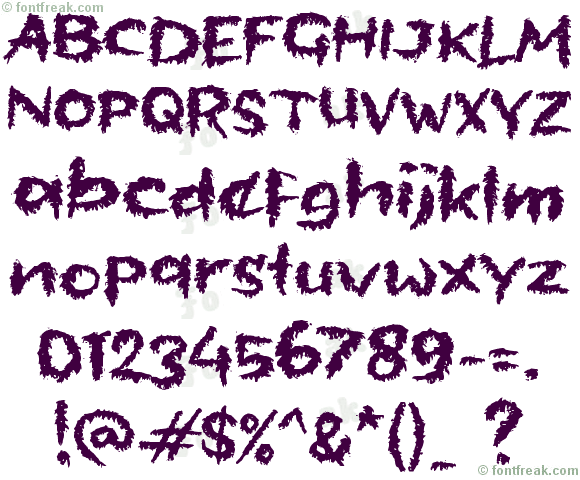
Belukar
Belukar — Character Map
About Belukar
Belukar, designed by Wahyu Eka Prasetya in 2021, is a striking display font that captures attention with its unique visual style. This font exhibits a decorative, hand-drawn characteristic that features uneven stroke weights and a textured appearance, giving it an organic and lively feel. The letters are crafted with a playful, slightly chaotic flair, offering an artistic touch that stands out in any design project. The spacing between the characters is thoughtfully balanced, allowing for easy readability while maintaining its bold aesthetic.
Belukar is an excellent choice for a variety of creative applications. Its distinct style makes it perfect for wedding invitations, where a personal and artistic touch is desired. Additionally, it works wonderfully on movie posters, lending an edgy vibe that can capture the essence of the film. Restaurant menus can also benefit from Belukar's unique aesthetic, especially for establishments aiming to convey a casual yet artistic atmosphere. Content creators and graphic designers will find this font particularly appealing for social media graphics, providing a memorable and impactful visual statement.
What sets Belukar apart is its ability to blend artistry with functionality, making it a standout choice for projects that need a distinctive flair. Whether you're designing for print or digital media, the Belukar font free download offers a unique tool for bringing your creative vision to life. Embrace its playful nature and let your designs resonate with personality.